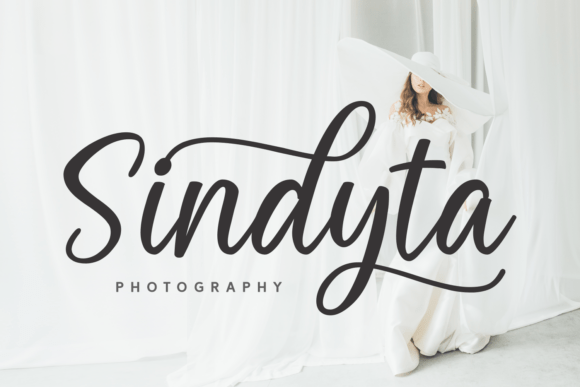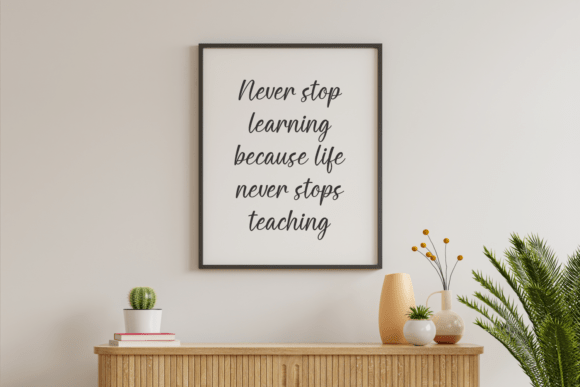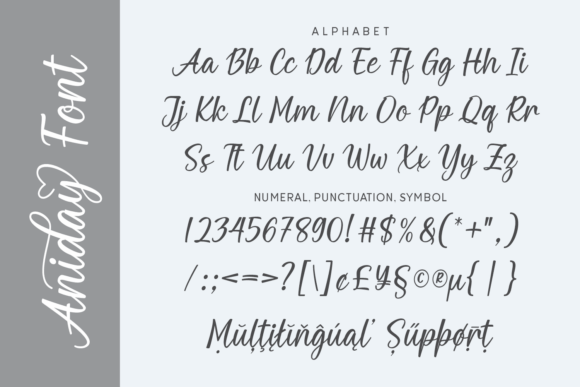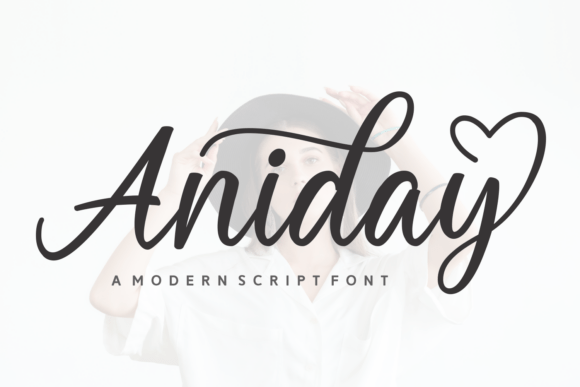
Introducing Aniday Font: The Perfect Script Font for Your Design Needs
Are you looking for a font that can add a personal touch to your designs? Look no further than Aniday Font, a charming and contemporary script font that is sure to make your message feel special. With its graceful curves, expressive strokes, and whimsical heart-shaped swash, Aniday radiates love and positivity, making it perfect for a variety of design projects.
What Makes Aniday Font So Special?
Aniday Font is a unique and stylish script font that offers a perfect balance between playful and elegant. Its beautiful, flowing curves and expressive strokes give it a charming and personal feel, making it ideal for adding a touch of warmth and personality to your designs. Whether you’re creating a quote, logo, greeting card, fashion brand, or wedding stationery, Aniday Font is sure to make your message stand out.
Key Features of Aniday Font
• Charming and Contemporary Design: Aniday Font has a modern and stylish design that is sure to catch the eye.
• Graceful Curves and Expressive Strokes: The font’s flowing curves and expressive strokes give it a beautiful, hand-written feel.
• Whimsical Heart-Shaped Swash: The font’s heart-shaped swash adds a touch of whimsy and playfulness, making it perfect for designs that require a personal touch.
• Perfect for Quotes, Logos, and More: Aniday Font is versatile and can be used for a variety of design projects, including quotes, logos, greeting cards, fashion branding, and wedding stationery.
Why Choose Aniday Font?
There are many script fonts available, but Aniday Font stands out from the rest. Here are just a few reasons why:
• Unique and Stylish Design: Aniday Font has a unique and stylish design that is sure to make your message stand out.
• Easy to Read: Despite its elegant and cursive design, Aniday Font is easy to read, making it perfect for body text and headlines.
• Versatile: Aniday Font can be used for a variety of design projects, from personal to commercial.
• High-Quality: Aniday Font is a high-quality font that is designed to deliver exceptional results.
How to Use Aniday Font in Your Designs
Aniday Font is easy to use and can be incorporated into your designs in a variety of ways. Here are a few ideas to get you started:
• Quotes and Sayings: Use Aniday Font to add a personal touch to your quotes and sayings.
• Logo Design: Create a unique and stylish logo for your brand using Aniday Font.
• Greeting Cards: Add a touch of elegance and sophistication to your greeting cards with Aniday Font.
• Fashion Branding: Use Aniday Font to create a stylish and memorable brand identity for your fashion label.
• Wedding Stationery: Make your wedding stationery truly special with Aniday Font.
Tips and Tricks for Getting the Most Out of Aniday Font
Here are a few tips and tricks for getting the most out of Aniday Font:
• Experiment with Different Sizes and Colors: Don’t be afraid to experiment with different sizes and colors to find the perfect combination for your design.
• Pair with Other Fonts: Aniday Font pairs well with other fonts, so don’t be afraid to try pairing it with a bold or sans-serif font.
• Use Swashes and Ligatures: Take advantage of Aniday Font’s swashes and ligatures to add a touch of elegance and sophistication to your design.
Aniday Font is a charming and contemporary script font that is sure to add a personal touch to your designs. With its unique and stylish design, graceful curves, and whimsical heart-shaped swash, Aniday Font is perfect for a variety of design projects. Whether you’re a designer, crafter, or DIY enthusiast, Aniday Font is a must-have font that is sure to deliver exceptional results.